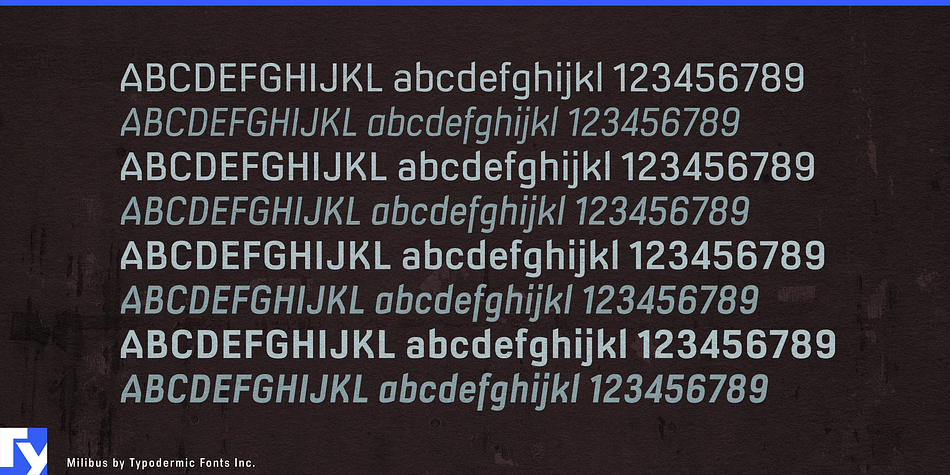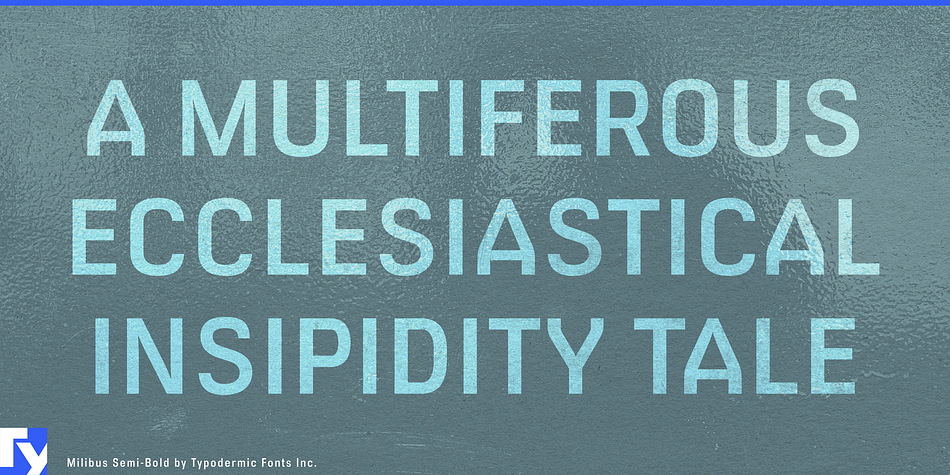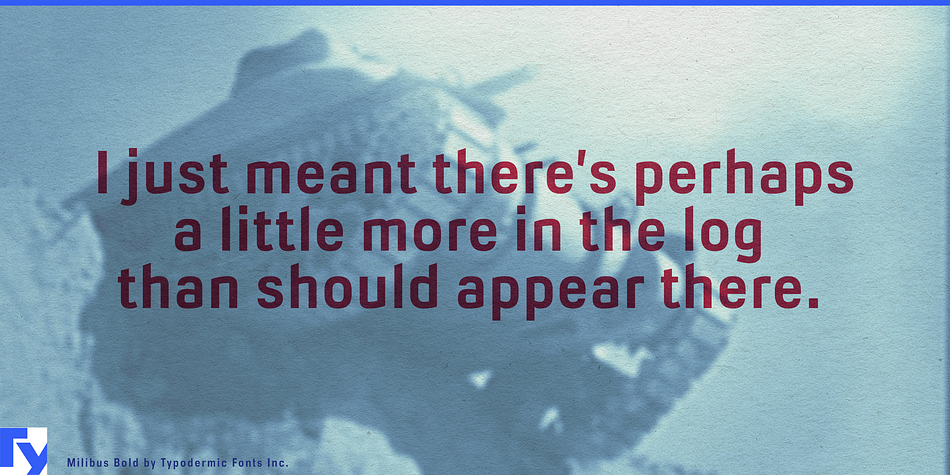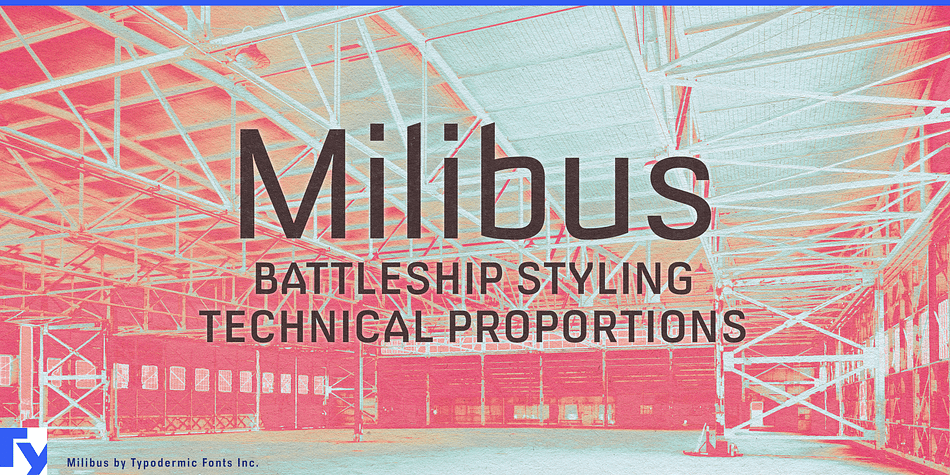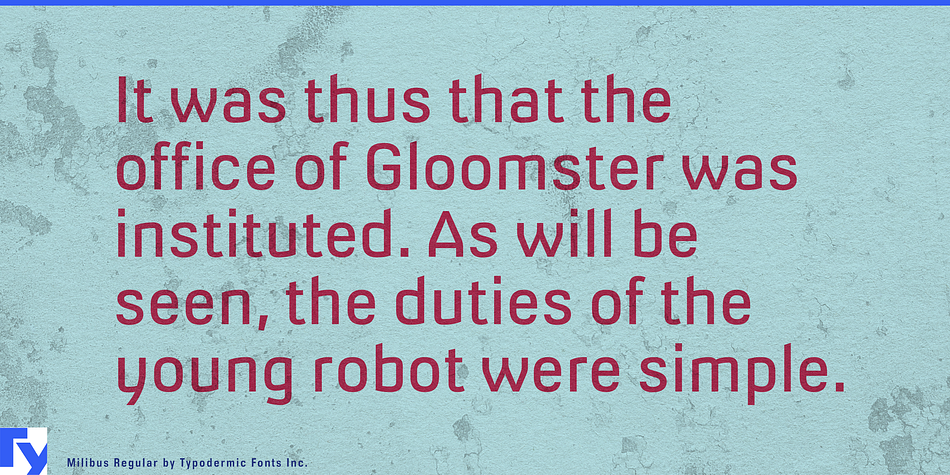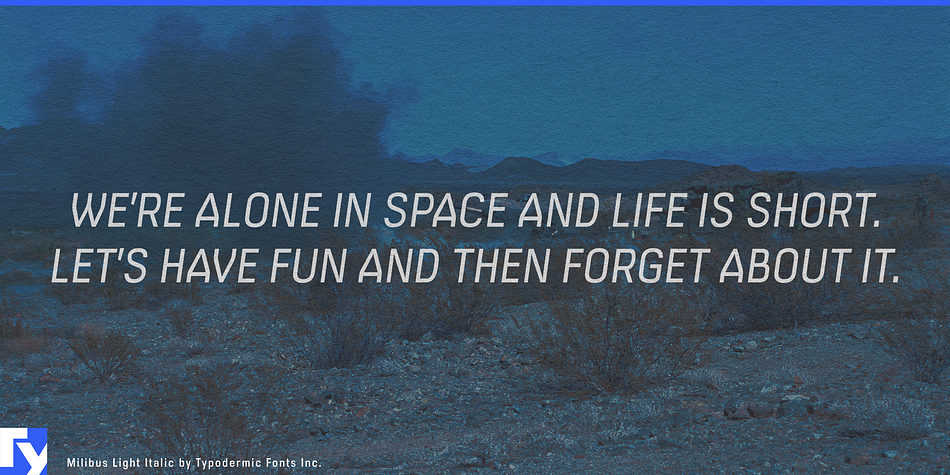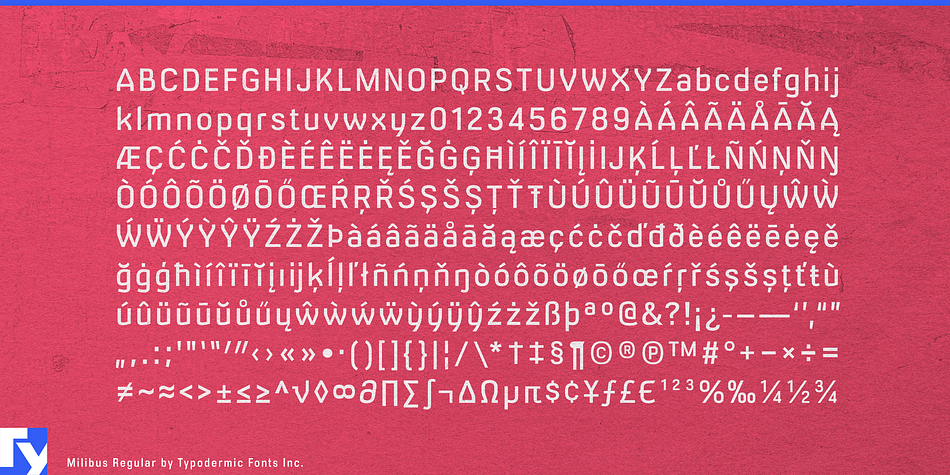
Milibus is a sans serif font family. This typeface has eight styles and was published by Typodermic Fonts Inc.
Milibus is a nontraditional technical sans-serif typeface available in 3 weights and italics.